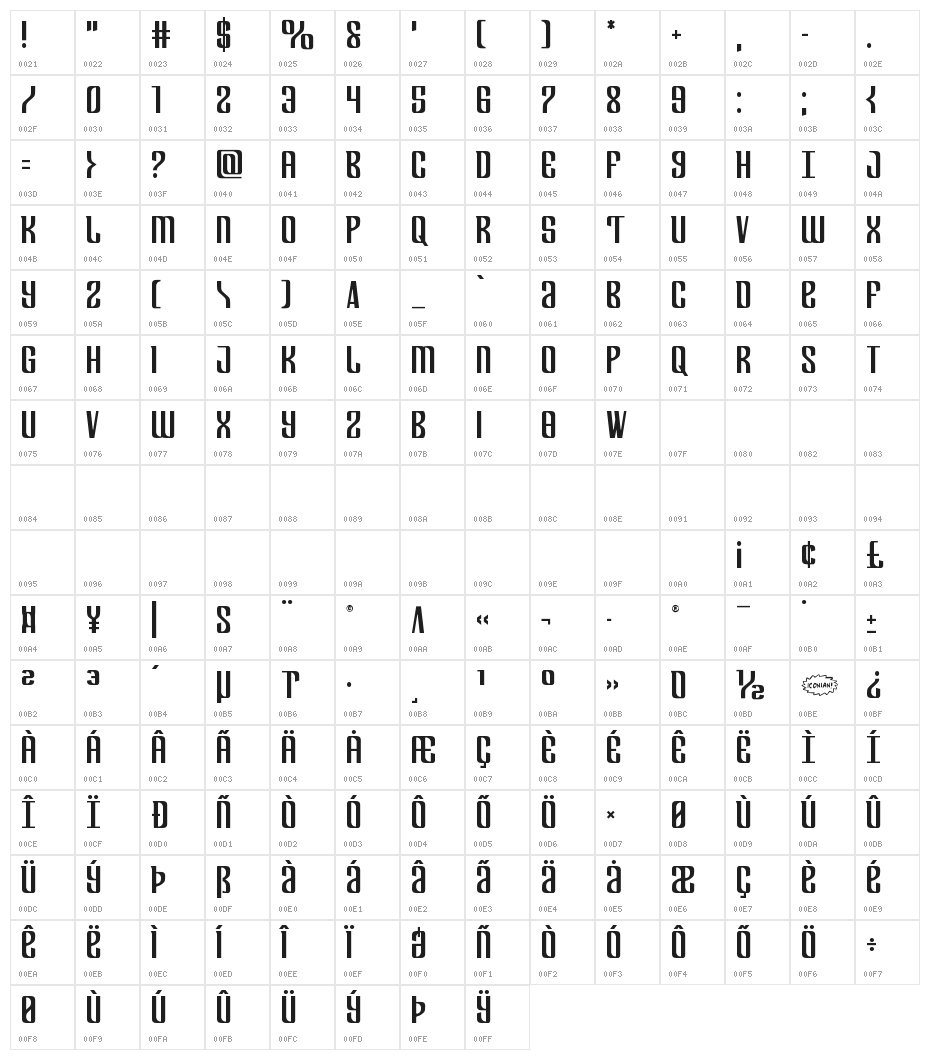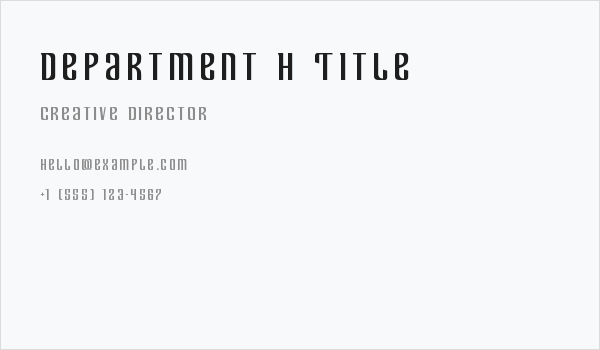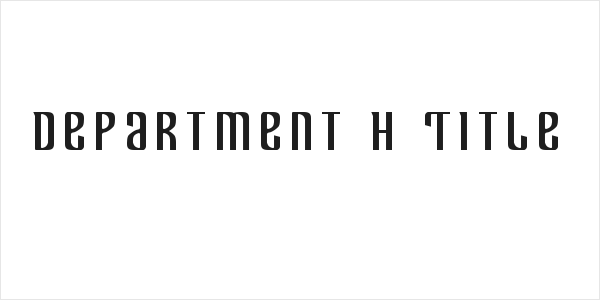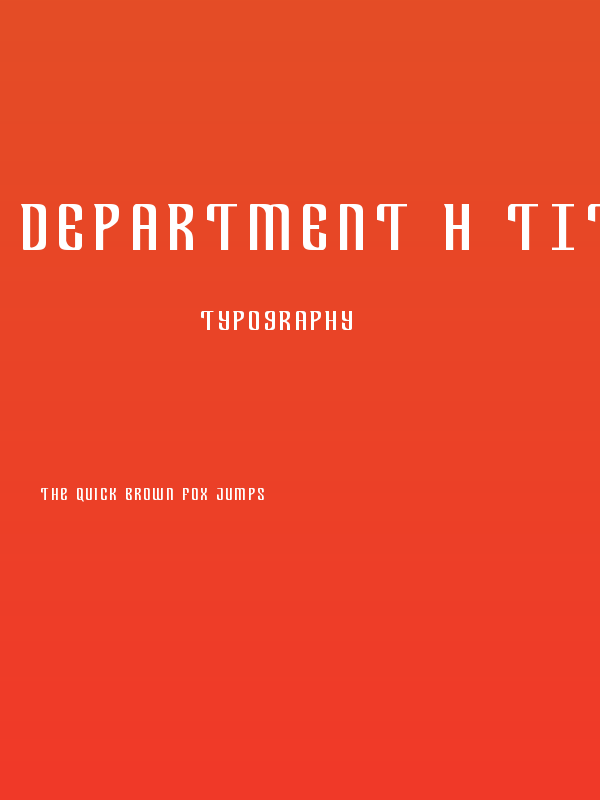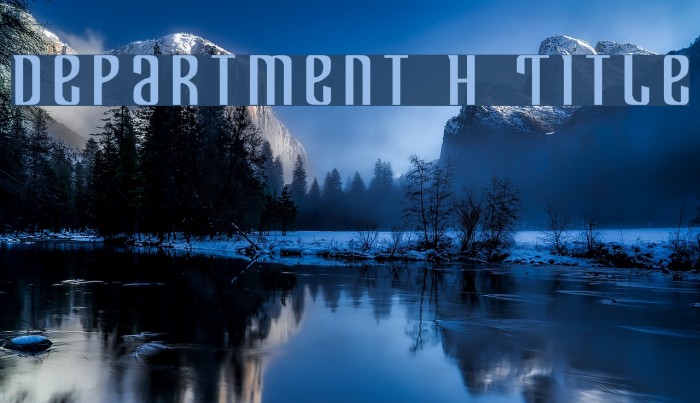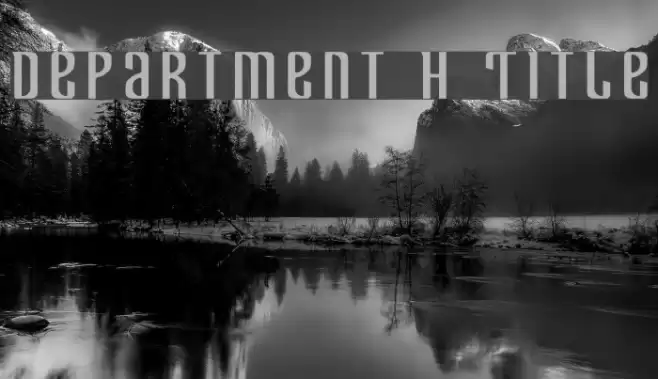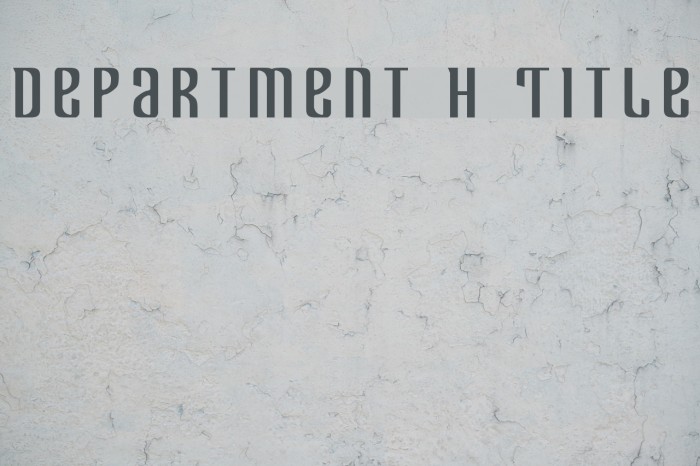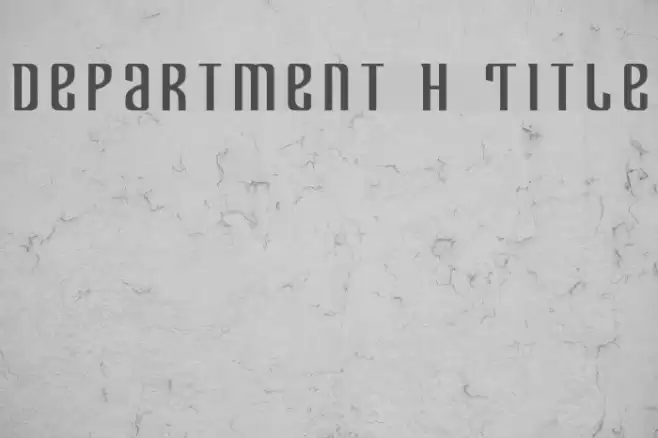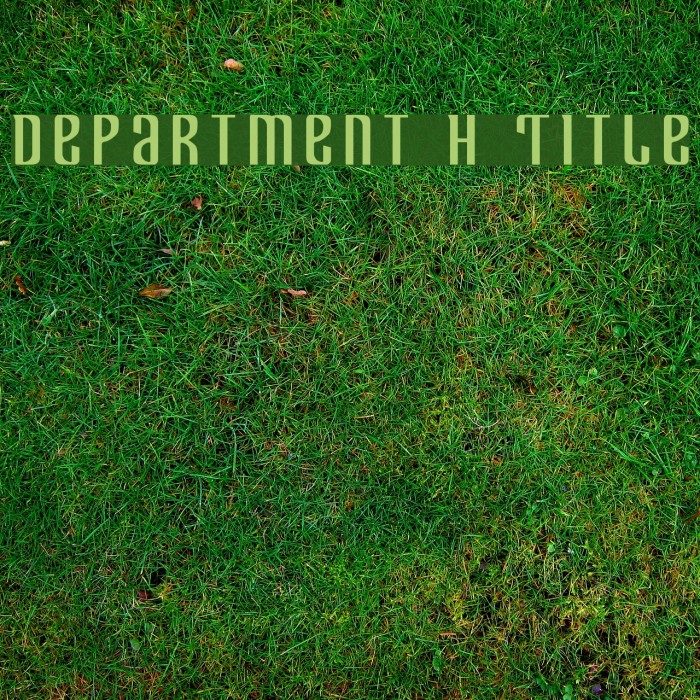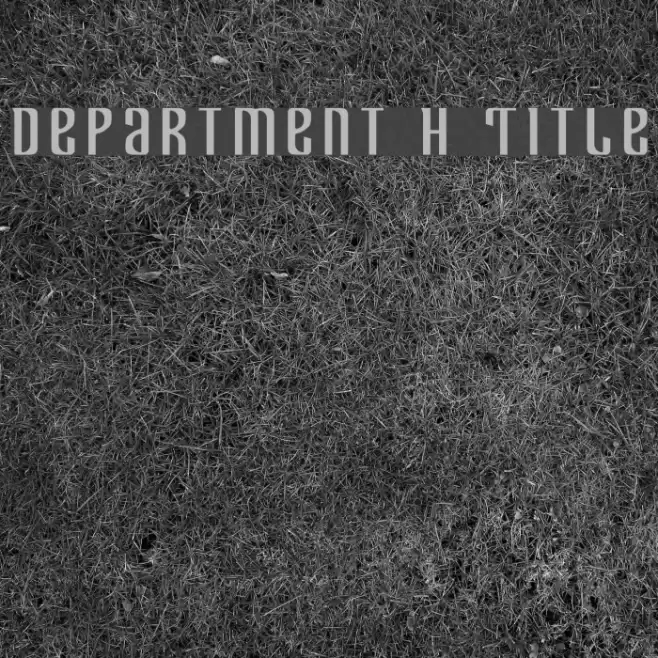
Department H Title Font
Department H Title Description
This font features a bold and modern design with a distinct geometric structure. The characters are tall and narrow, giving a condensed appearance. The uppercase letters have a unique style with sharp angles and clean lines, while the lowercase letters maintain a similar aesthetic with slightly softer curves. The numbers are consistent with the overall design, offering a sleek and cohesive look. Special characters are well-integrated, maintaining the font's bold and contemporary feel. This typeface is ideal for creating a strong visual impact.
| Proposed Projects | Ideal for headlines, posters, branding, and logo design where a strong visual impact is desired. |